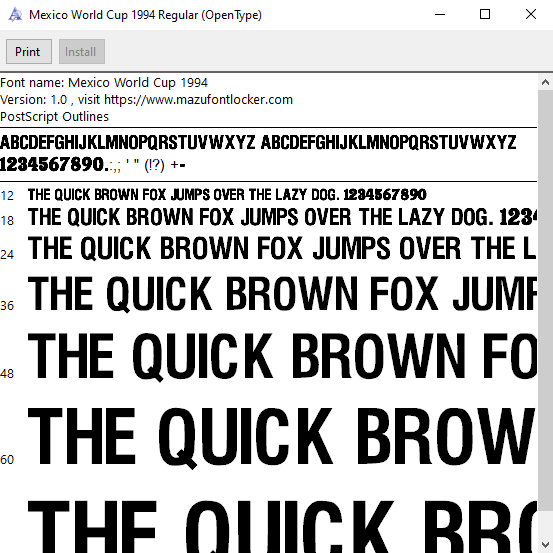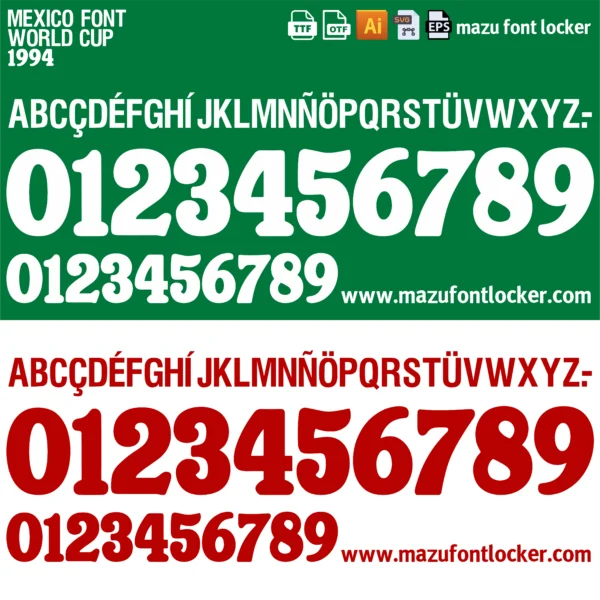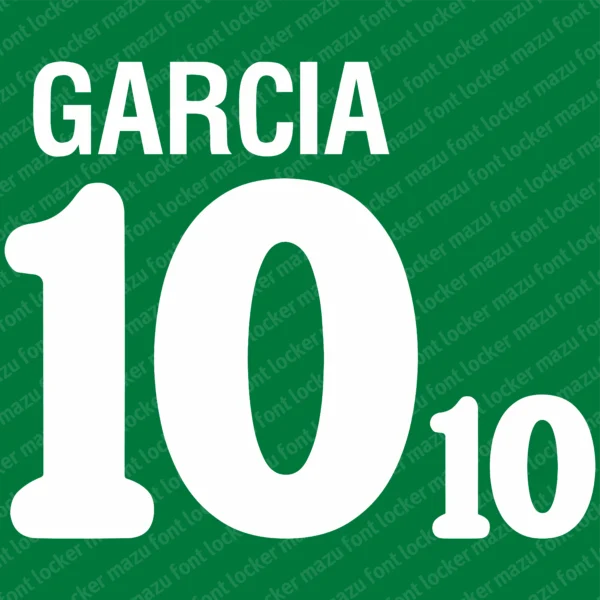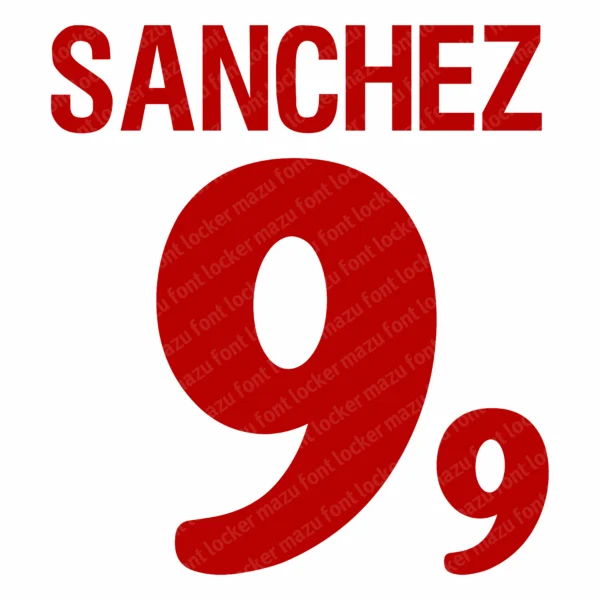
Mexico World Cup 1994 Font Vector – Legendary Green Eagle Masterpiece
Mexico World Cup 1994 Font Vector – Authentic Mexico 1994 Typeface
The Mexico World Cup 1994 Font Vector is a premium typeface that accurately recreates the official match lettering worn by the Mexico National Team during the 1994 FIFA World Cup. This high-quality vector font kit captures the bold, vibrant, and iconic typography that represents the passion, pride, and Mexican flair of El Tri.
Designed for professional designers and passionate Mexico fans, the Mexico World Cup 1994 Font Vector delivers perfect authenticity for creating realistic jersey mockups, fan merchandise, matchday posters, social media graphics, and classic World Cup content. It pairs beautifully with the iconic green home kit featuring the famous Mexico crest.
Why Choose Mexico World Cup 1994 Font Vector
This font stands out because of its sharp vector precision and strong national identity. Every letter and number is crafted to match the exact style used on the players’ shirts during the historic 1994 World Cup campaign. Whether you are making realistic kit templates or exciting Mexico content, the Mexico World Cup 1994 Font Vector gives your designs that authentic Mexican look.
The letterforms in the Mexico World Cup 1994 Font Vector are tall, bold, and highly readable. The strokes have a strong, clean weight with excellent edge definition that looks powerful on the back of jerseys while maintaining classic Mexican heritage and vibrant energy.
• Full uppercase A–Z and numbers 0–9 in authentic Mexico World Cup 1994 style
• Create highly realistic Mexico World Cup 1994 home and away jersey mockups with accurate lettering
Mexico World Cup 1994 Campaign
The Mexico World Cup 1994 Font Vector is an independently designed typeface package. It is carefully crafted to replicate the official shirt lettering style of the 1994 World Cup. This font kit is perfect for creative projects, fan edits, nostalgic jersey designs, and classic football graphics.